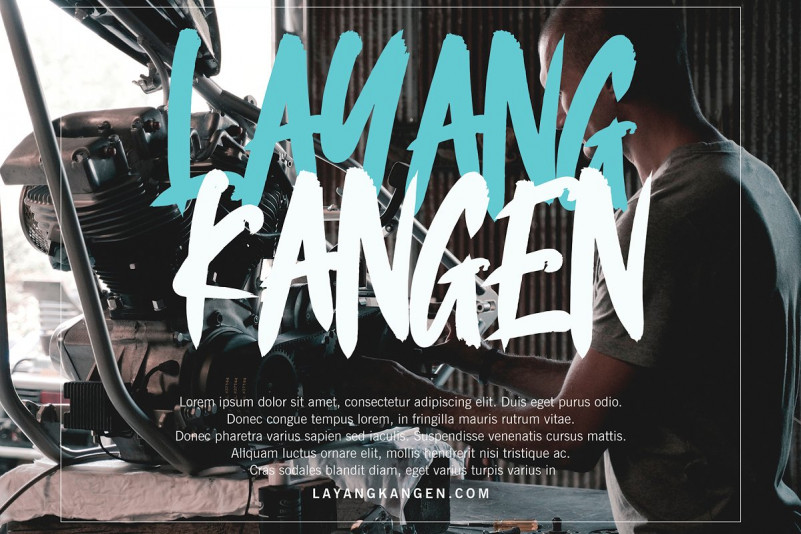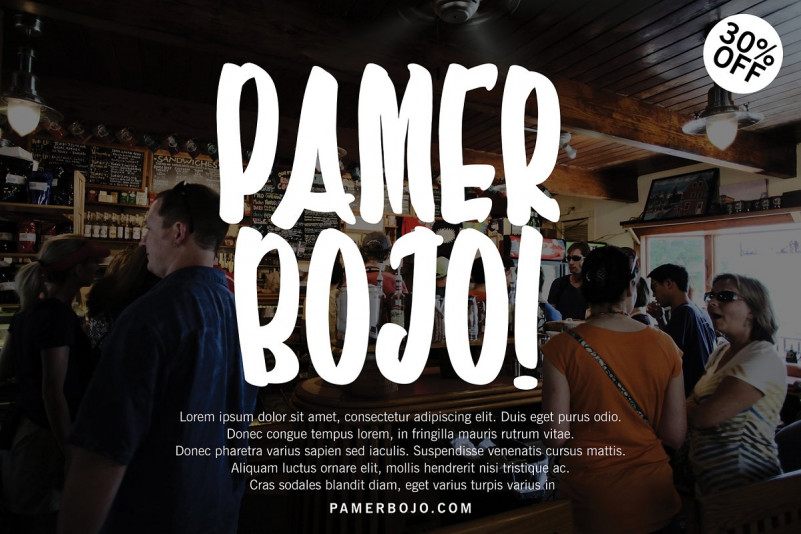
ONE SHOT FONT
ONE SHOT font with new style Display, this font will perfect for many different project ex: quotes, logo, blog header, poster, banding, fashion, apparel, letter, invitation, stationery, etc…